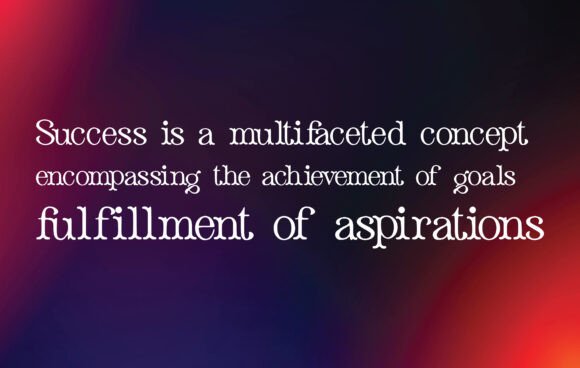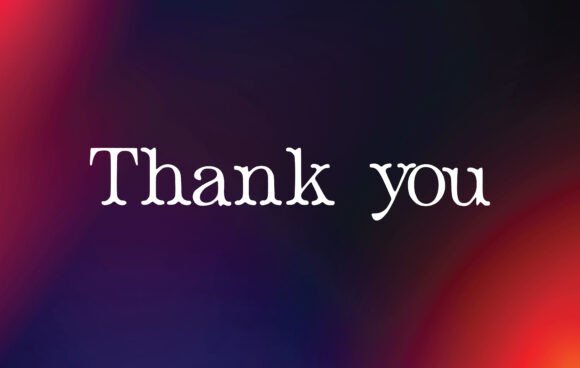
Discover the Beauty of Calum Font: Elevate Your Designs with Elegance
I’ll never forget the moment I stumbled upon the Calum font while working on a branding project for a luxury client. I had been searching for the perfect font to capture the essence of their high-end boutique, but everything I tried seemed either too bland or too over-the-top. That’s when I found Calum – a lovely and beautiful font that instantly resonated with the project’s aesthetic. It was as if the designer had read my mind! In this article, I’ll share why Calum has become a staple in my design toolkit and how you can make the most of its stunning features.
An Honest Review of Calum Font
What I Love About Calum ✨
• ✅ Elegant and sophisticated design that’s perfect for luxury brands
• ✅ Highly versatile, suitable for logos, branding, quotes, and more
• ✅ Beautifully crafted to add a touch of sophistication to any design
• ✅ Easy to read, even at smaller font sizes
While Calum is an exceptional font, there are a few minor considerations to keep in mind:
• 🤔 Some users might find the font a tad too ornate for very casual or playful projects
• ⚠️ As with many elegant fonts, it may not be the best choice for very long blocks of text
The Backstory of Calum Font
Calum was designed by a talented typographer who aimed to create a font that embodies elegance and sophistication. The designer’s inspiration came from classic calligraphy and the need for a modern, versatile font that could be used across various mediums. The result is a font that not only looks stunning but also provides flexibility and readability.
Is Calum suitable for body text? While Calum is beautiful, it’s primarily designed for headlines and short paragraphs. For longer blocks of text, consider pairing it with a more readable font.
Does Calum support OpenType features? Yes, Calum supports various OpenType features, including stylistic alternates and swashes. These can be accessed through compatible design software like Adobe Creative Cloud applications.
Calum font is indeed a game-changer for designers looking to elevate their creative projects. Its elegance, versatility, and range of features make it an excellent choice for luxury brands, creative hobbyists, and anyone in between. By incorporating Calum into your design toolkit, you’ll be well on your way to creating stunning, professional-grade designs that leave a lasting impression.